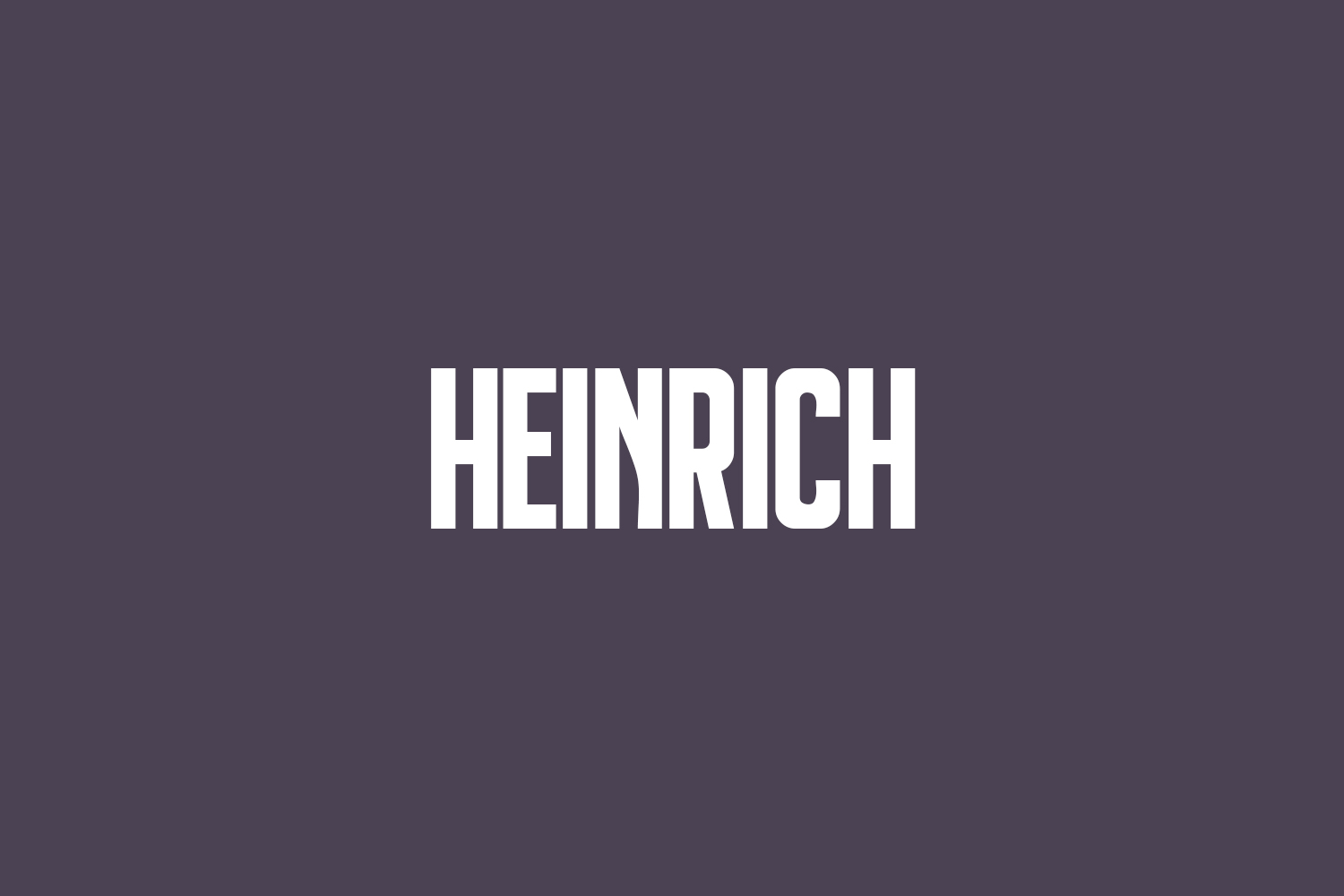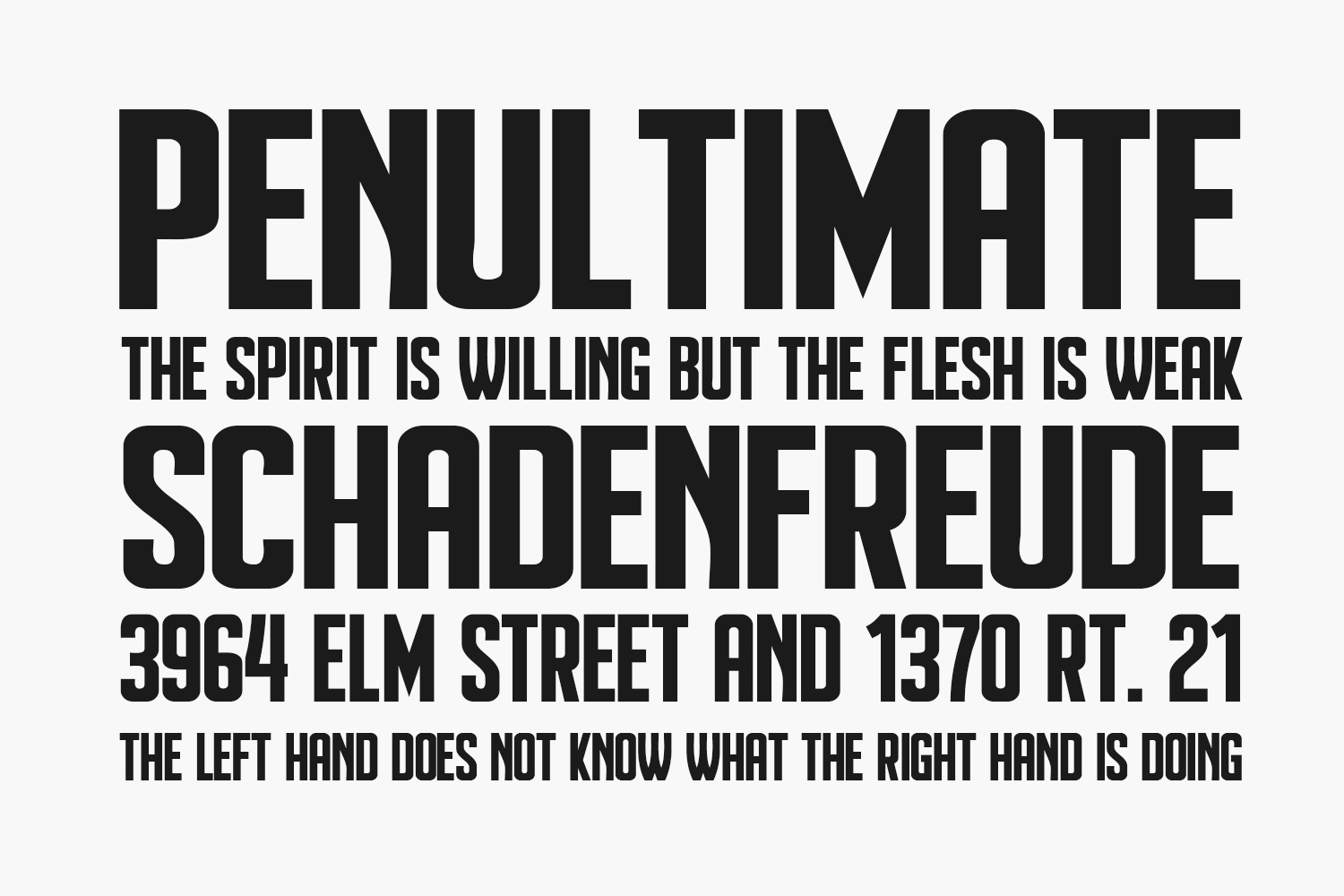
Heinrich Free Font is a unique sans serif font with a bold feel. Get inspired by its timeless charm. Heinrich Free Font was designed by Vladimir Nikolic and is free for personal use only. Please purchase the full version for commercial use.
Designed by Vladimir Nikolic